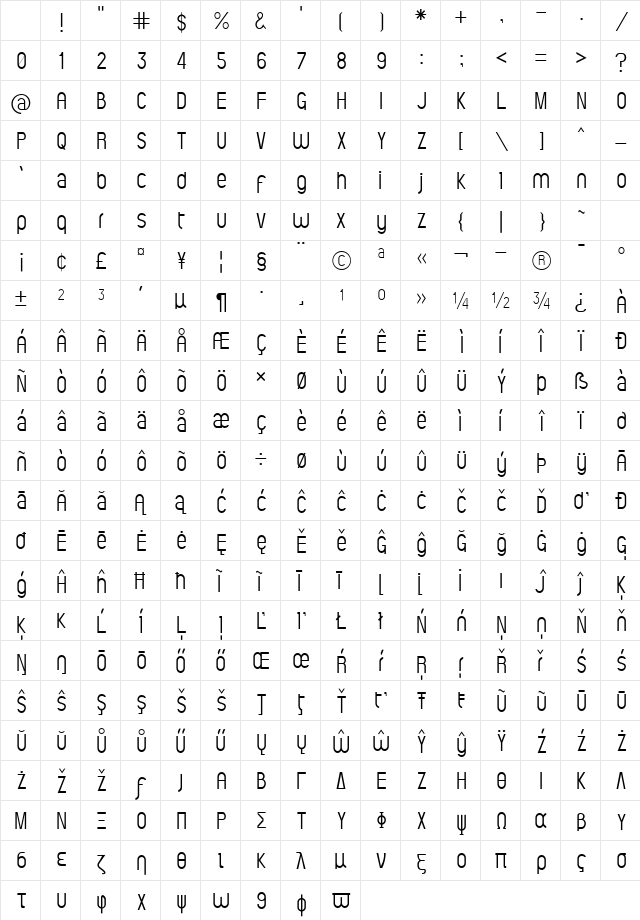
ElValle is a composed and adaptable typeface that performs quietly and consistently across a wide range of design contexts. Its slender proportions lend an understated elegance to any composition.